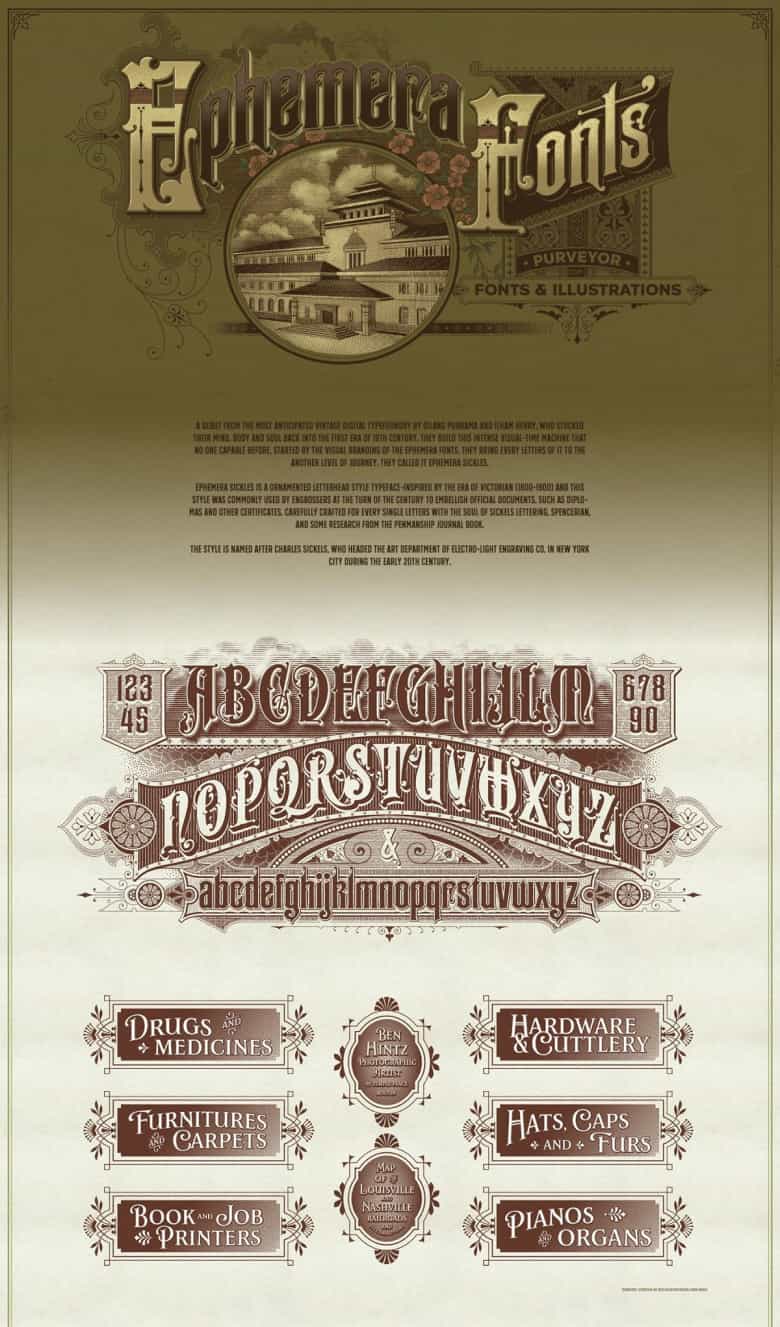
Gilang Purnama and Ilham Herry’s first vintage digital typefoundry album, Ephemera Fonts is the long awaited work; each letter takes the listener back to 18th century France through Ephemera Sickles – it really creates an amazing journey back in time!